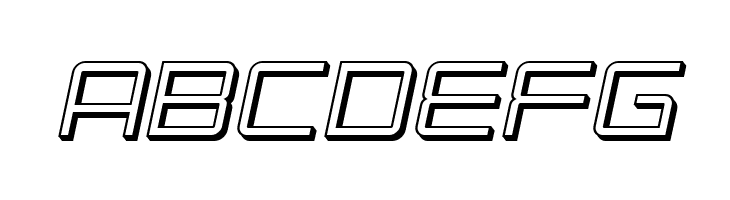
Neutron Dance Expanded Italic Font
- Font: Neutron Dance Expanded Italic
A futuristic, geometric oblique font with outlined characters and a sleek, modern aesthetic.